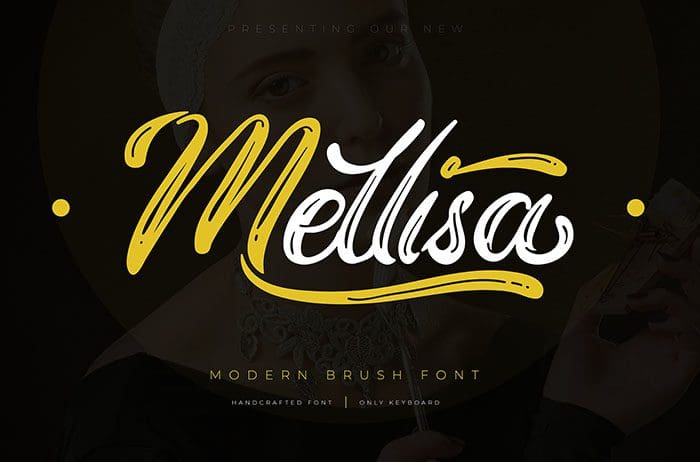
Mellisa Brush Font
Mellisa is a great and modern brush font created with a brush pen. This font is the perfect fit for all of your logos, branding, and crafty DIY projects. Thanks to Vunira Studio for sharing this font! Take a look at this portfolio for more of his stunning fonts.